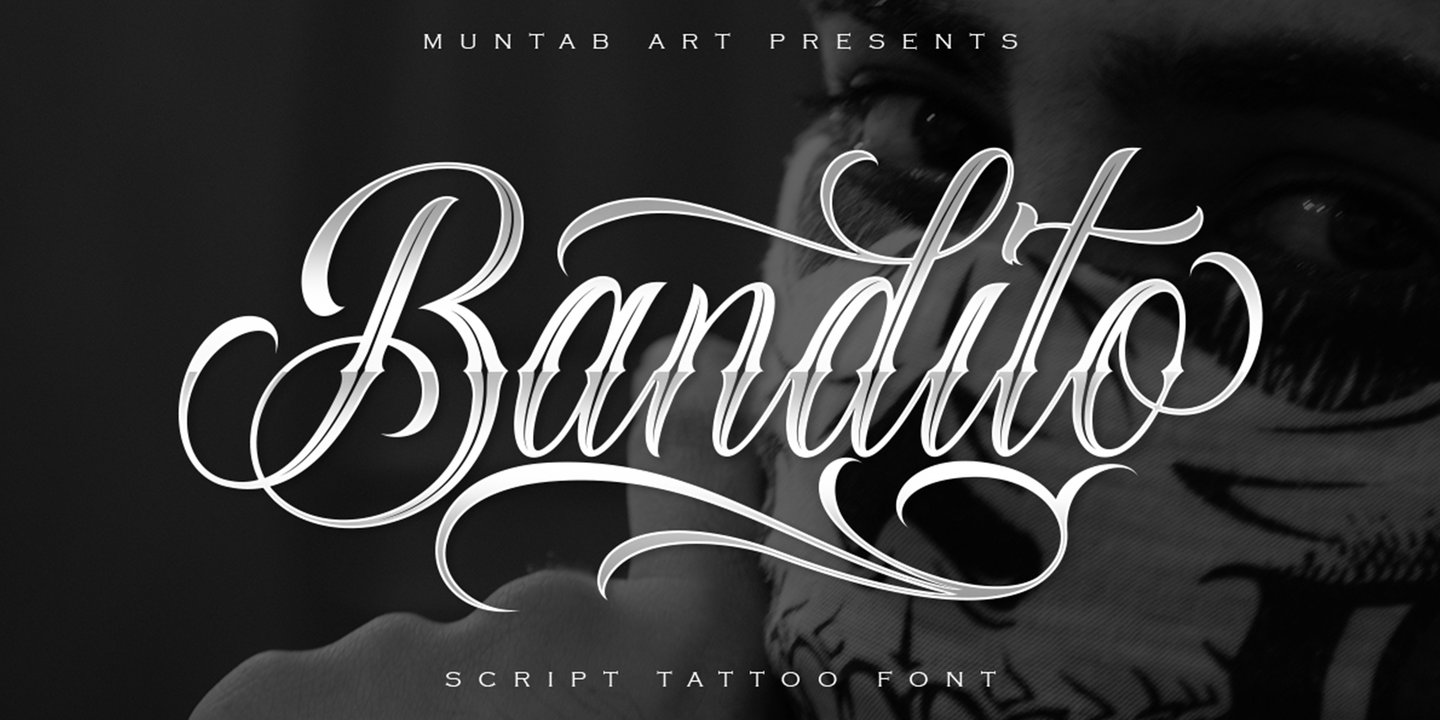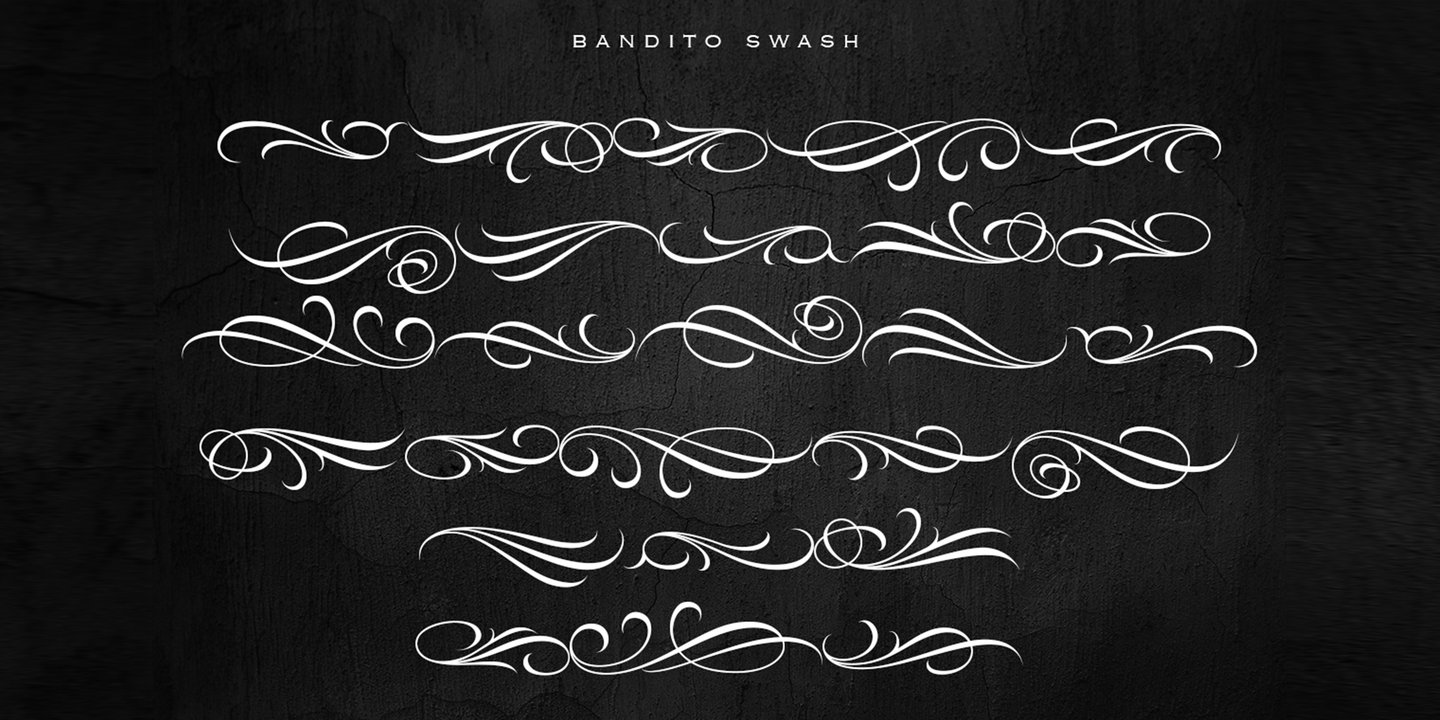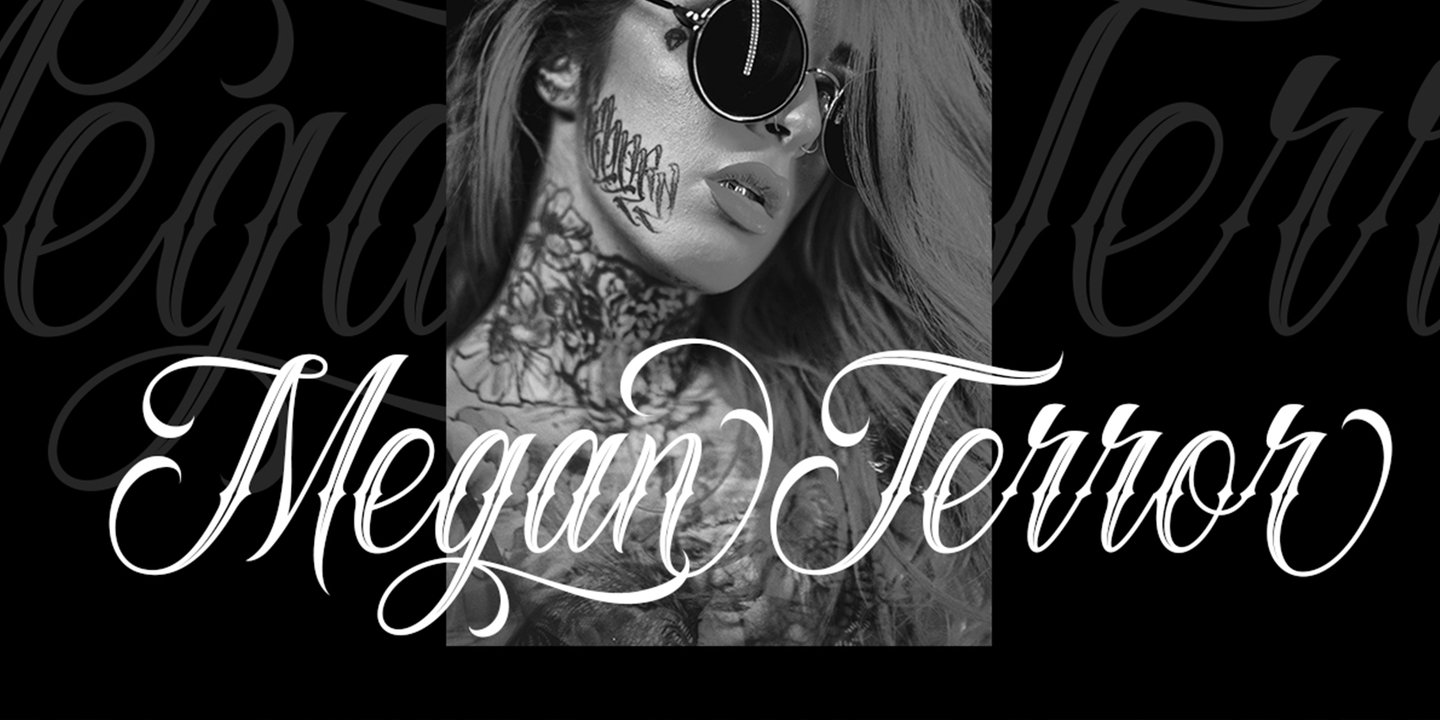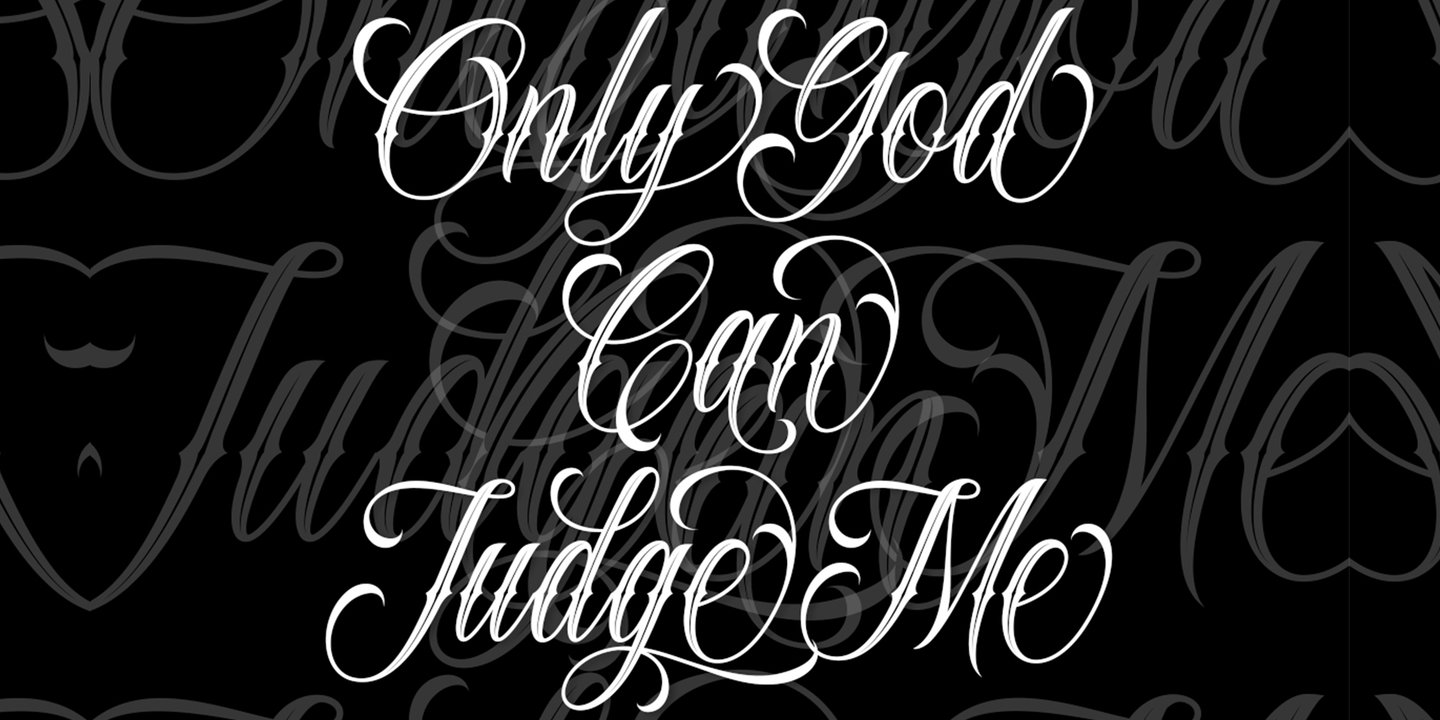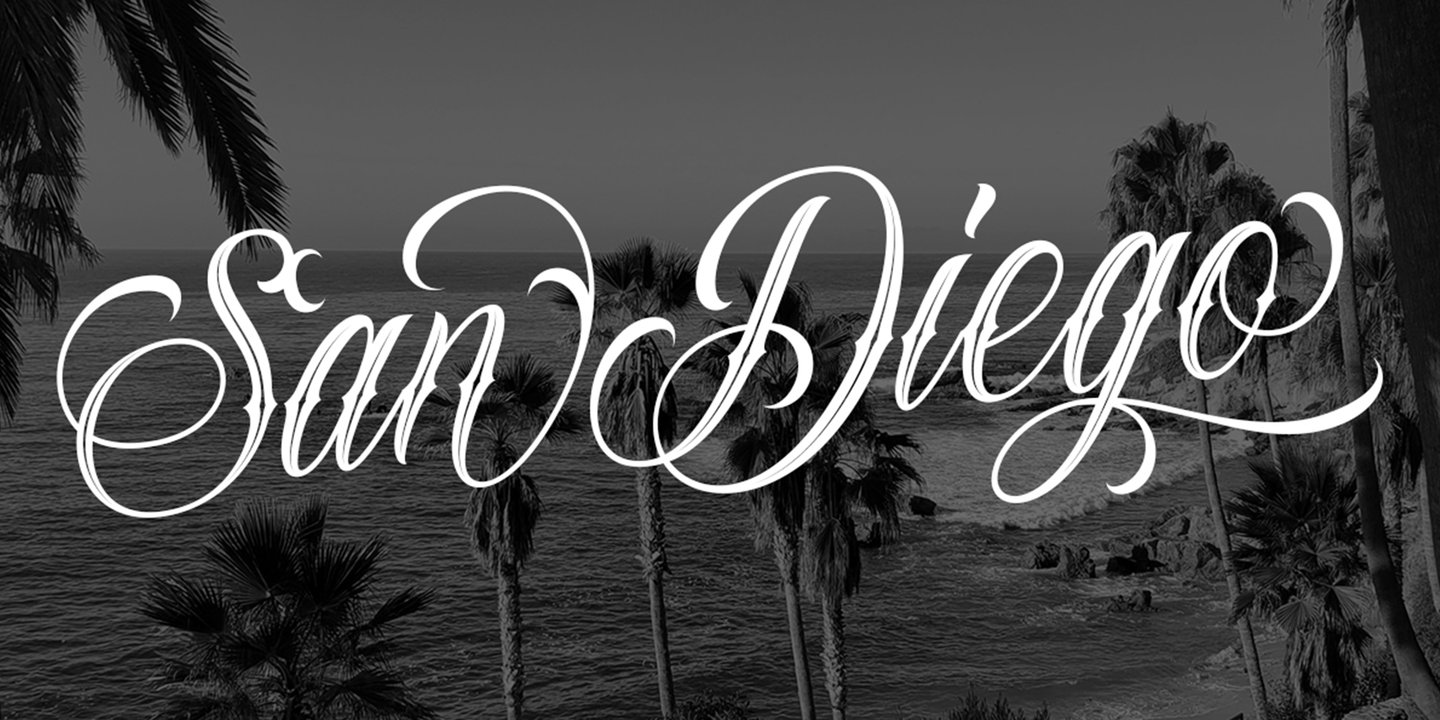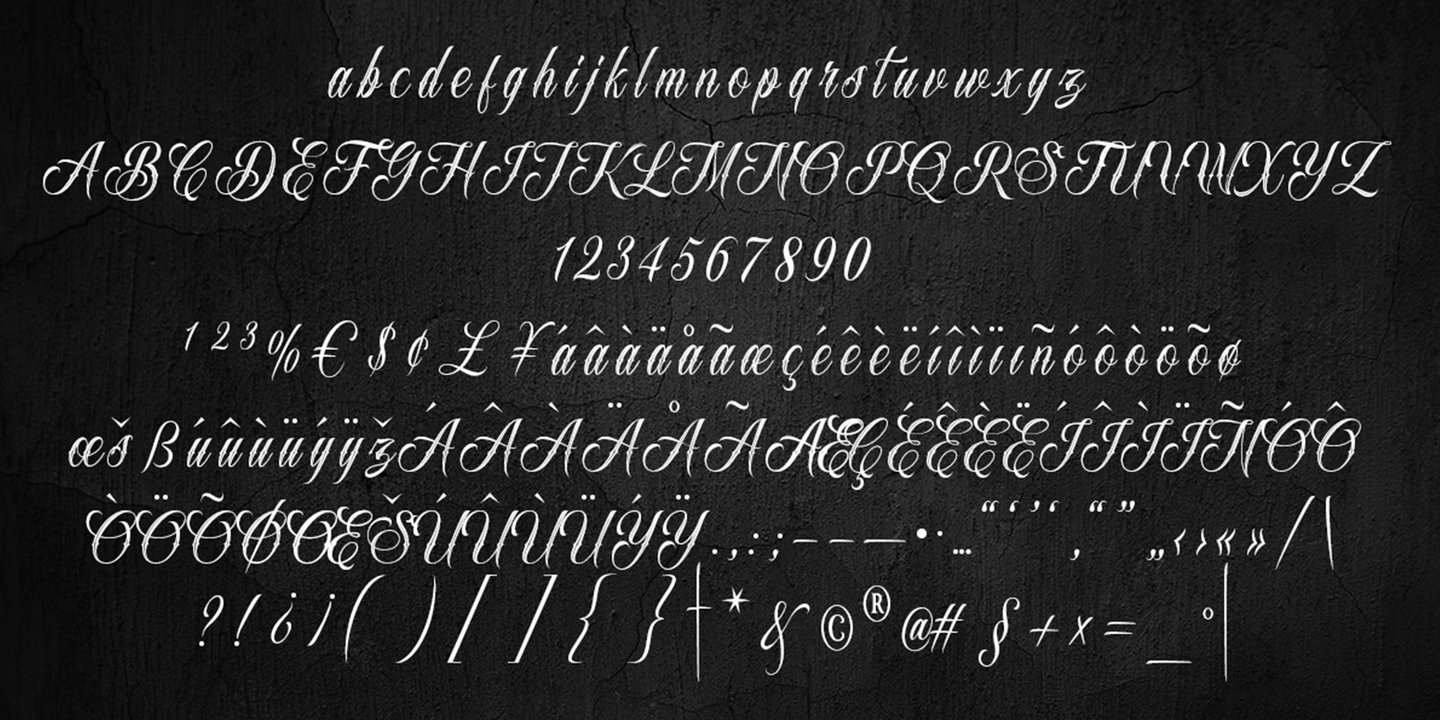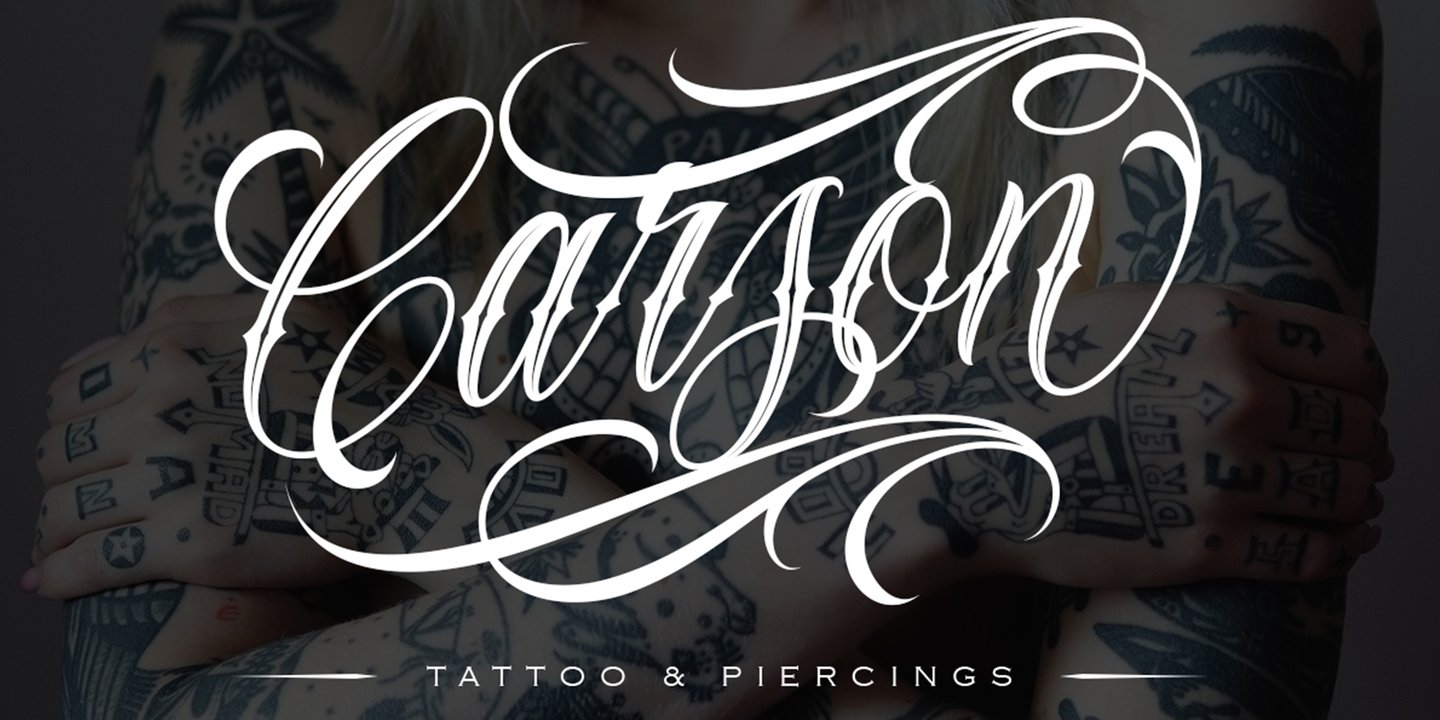
Bandito Script Complete Family
Introducing of our new product the name Bandito fonts. Bandito includes uppercase and lowercase letters, numerals, a large range of punctuation and ligatures. All lowercase letters include ending swashes and alternative font.
FEATURES :
Uppercase Lowercase Number Punctuation Multilingual Swash Opentype